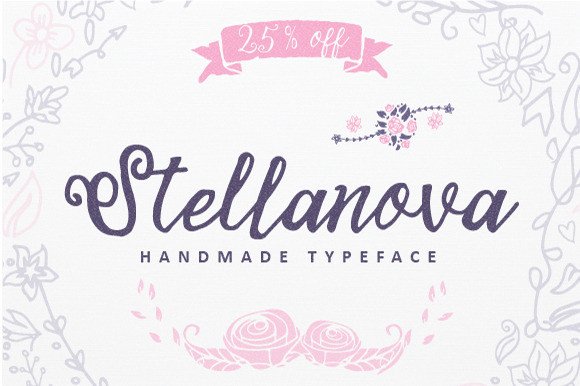
Stellanova Font
Introducing Stellanova Font: The Enchanting Handwritten Script That Will Elevate Your Designs!
Journey into a realm of unbridled creativity with Stellanova Font, the captivating handwritten script font that's poised to breathe life into your design endeavors. This font is the brainchild of the talented Ian Mikraz, a master in the art of digital calligraphy. Stellanova's essence lies in its eclectic charm, seamlessly blending soft and subtle strokes with an undeniably quirky personality.
With Stellanova as your creative companion, you'll find yourself immersed in a world of endless possibilities. Its versatile nature effortlessly adapts to a myriad of design projects; from whimsical wedding invitations and heartfelt love letters to eye-catching social media posts and enchanting branding materials.
Visualize your words dancing across the page, imbued with the warmth and authenticity of Stellanova's hand-drawn characters. Experience the joy of crafting designs that resonate with your audience, evoking emotions and leaving a lasting impression.
Embrace Stellanova's captivating allure and watch as your designs transform into masterpieces that captivate and inspire. Let this charming script font guide you on a journey of creative exploration, empowering you to manifest your visions into stunning realities.